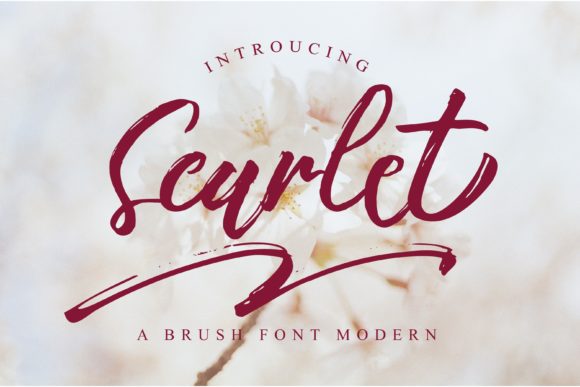
Introducing the Scarlet Font - A Dash of Quirky Charm for Every Occasion!
Calling all creatives! Get ready to embrace the vibrant and playful essence of the Scarlet Font. This captivating script font, lovingly crafted by the talented designers at Nerdstudio, is not just a font; it's a gateway to unleashing your imagination.
Step into a world of endless possibilities where the Scarlet Font dances across your digital designs with an irresistible charm. Its playful nature makes it an ideal choice for adding a touch of whimsy to birthday cards, greeting designs, and social media posts. Whether you're crafting heartfelt messages or quirky invitations, the Scarlet Font will effortlessly elevate your words, making them pop with personality.
With its subtle yet noticeable flair, the Scarlet Font seamlessly complements various design aesthetics. It effortlessly blends with bold graphics, lending them a touch of playful charm. Simultaneously, it harmonizes beautifully with delicate, feminine designs, adding a hint of whimsy that captivates the eye.
What sets the Scarlet Font apart is its extraordinary versatility. It's not just a font confined to a specific style; it's a chameleon that adapts to your creative vision. From eye-catching headlines that demand attention to charming body text that invites readers to delve deeper, the Scarlet Font empowers you to make a statement in any context.
Embrace the magic of the Scarlet Font today and unlock a world of creative possibilities. Let its playful spirit ignite your imagination and add a touch of quirky charm to your designs. Whether you're a seasoned pro or just starting your design journey, the Scarlet Font is your perfect companion, ready to elevate your creations to new heights.